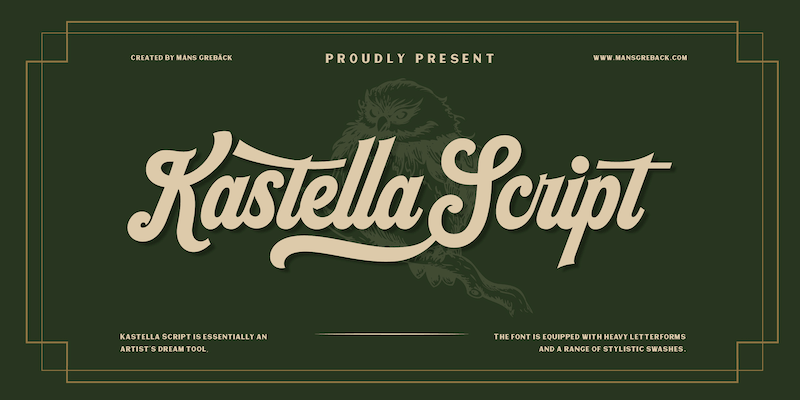
Preview and download Kastella Script Font. Created by Måns Grebäck in Script Old School styles with Free for personal use license.
NOTE: This font is for PERSONAL USE ONLY! To purchase a commercial license, visit: http://mn.sg/kastella-script Kastella Script is an artist's dream tool, to accentuate the piece of art that your graphic design is. Use it to make classic American logo with a sporty look. Use underscore _ to make an underline. Example: Bea_uty Use multiple underscore for different swashes. Example: Super____human For questions, please visit www.mansgreback.com/faq |